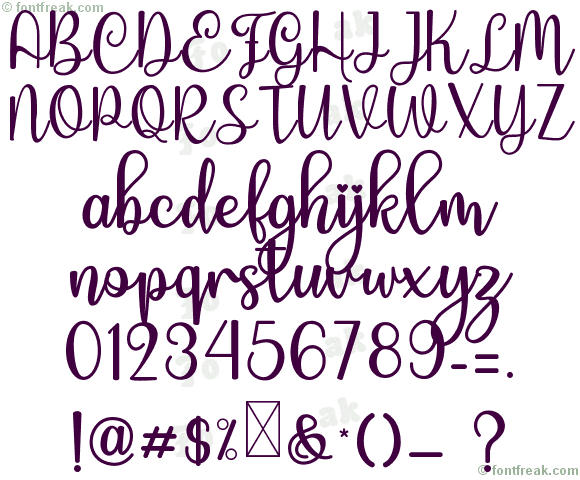
Enlova
About Enlova
Enlova, crafted by Eknoji Studio, is a stunning handwritten font that exudes elegance and charm. This unique typeface features a fluid, cursive style with graceful strokes that create a sense of movement and sophistication. The design showcases a medium stroke weight with subtle contrasts, giving it a balanced appearance that enhances readability while maintaining its artistic flair. The spacing between characters is thoughtfully considered, allowing for a harmonious flow that feels both organic and inviting.
Enlova is perfect for a variety of design applications. It shines in wedding invitations, where its romantic character adds a personal touch. Additionally, it works beautifully for branding projects, such as logo designs for artisanal cafés or boutique shops, where a handcrafted feel is desired. The font also makes an excellent choice for social media graphics, allowing content creators to convey warmth and personality in their posts. Furthermore, its aesthetic makes it suitable for greeting cards and personal stationery, effortlessly enhancing any message with a touch of elegance.
The target audience for Enlova includes graphic designers, small business owners, and content creators who seek a distinctive typeface that stands out and captures attention. Its versatility makes it an invaluable addition to any designer's toolkit, whether they are working on digital or print projects.
What sets Enlova apart is its ability to blend artistic expression with functional design. The font's enchanting style invites viewers to engage with the text while maintaining clarity and readability. With its free availability, the Enlova font free download is an opportunity for creators to enhance their work with a touch of sophistication and creativity. This unique typeface is sure to leave a lasting impression on any project.